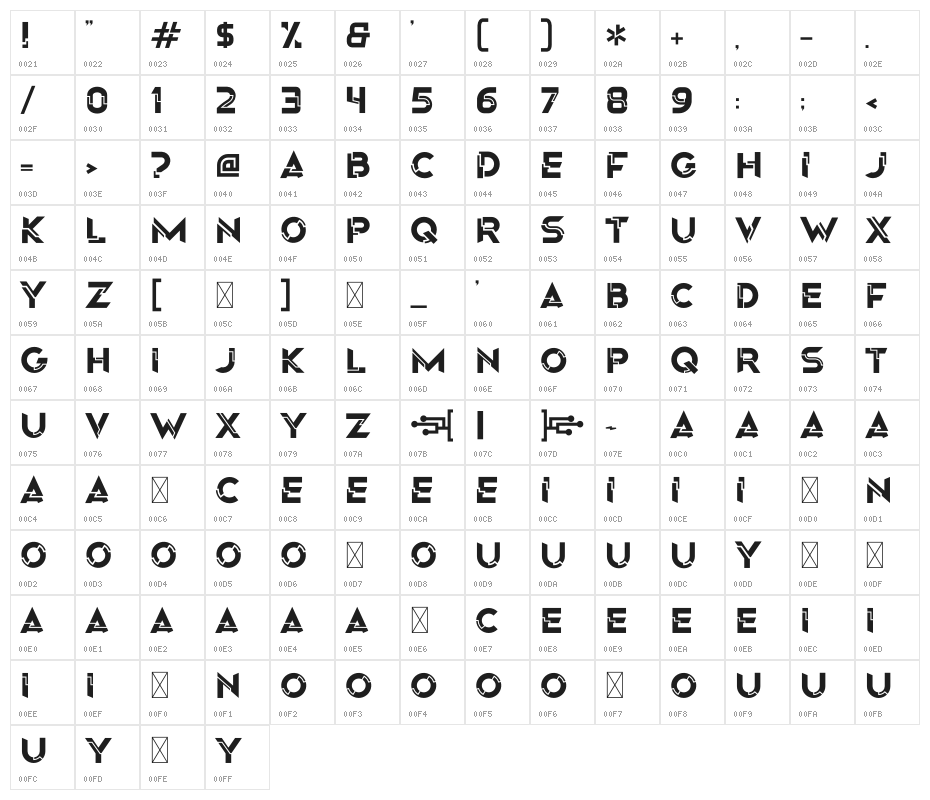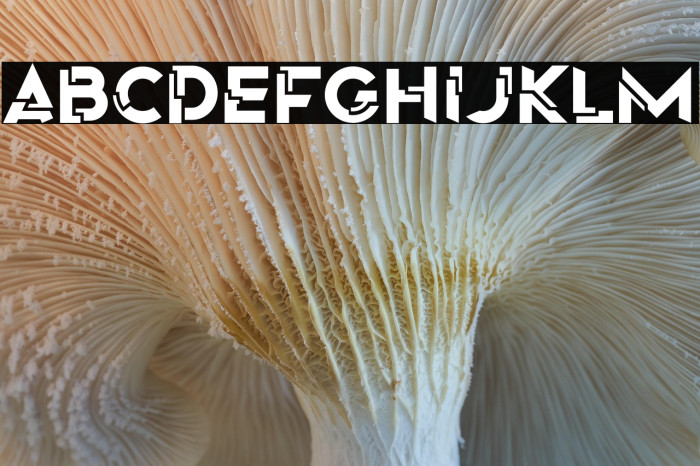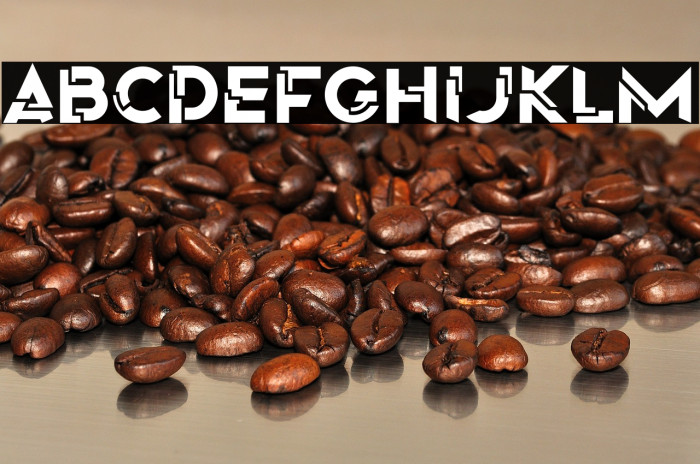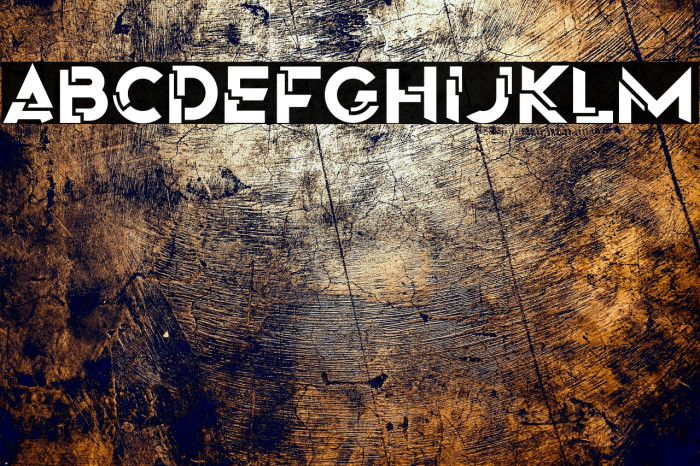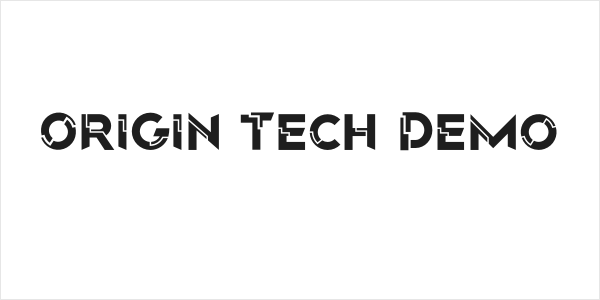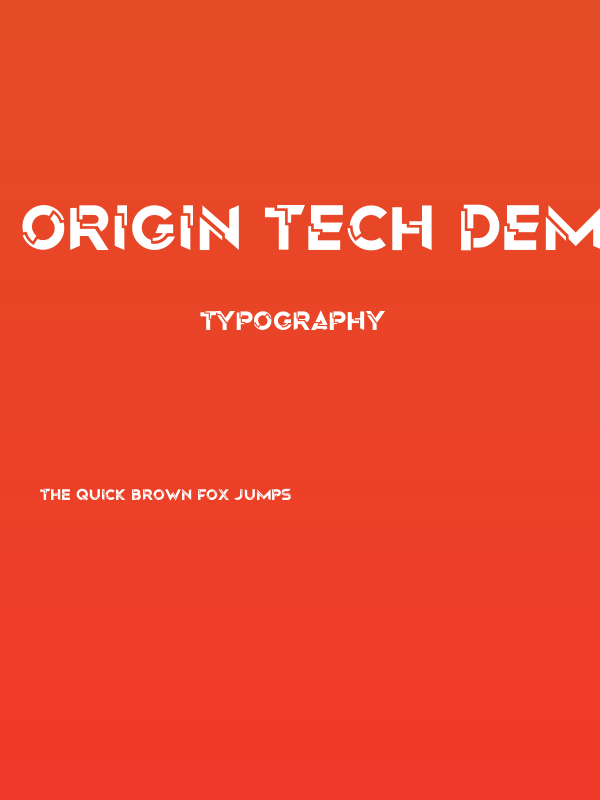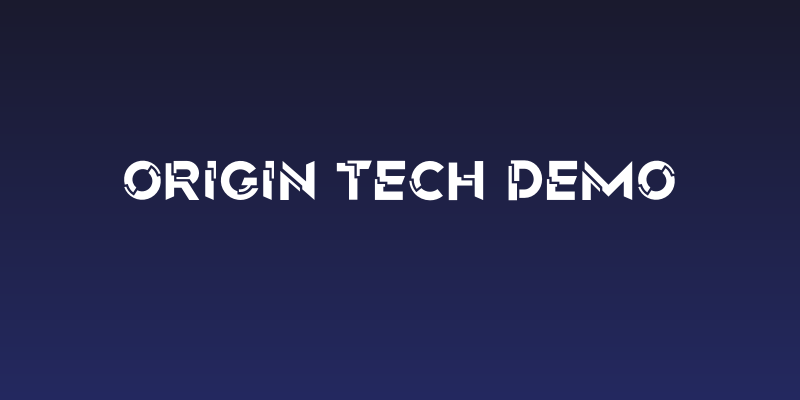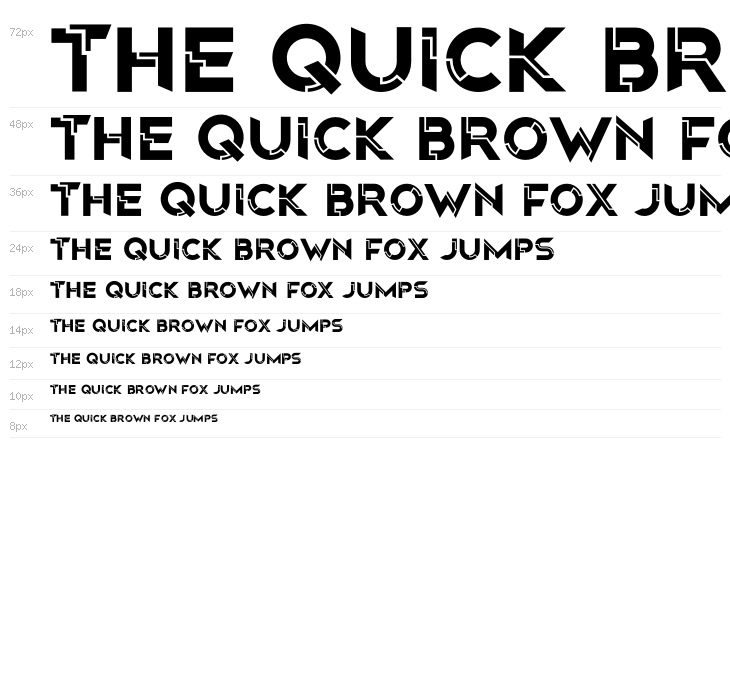
Origin Tech Demo Font
Origin Tech Demo Description
This font features a bold and futuristic design with geometric elements and sharp angles. The characters are constructed with a combination of solid and cut-out sections, creating a dynamic and tech-inspired appearance. The uppercase letters are particularly striking, with a strong presence and unique style. The numbers and special characters maintain this theme, offering a cohesive look across all glyphs. This font is ideal for projects that require a modern and edgy aesthetic, such as technology branding, video game titles, or sci-fi themed designs.
| Proposed Projects | Ideal for technology branding, video game titles, sci-fi themed designs, and modern advertising. |